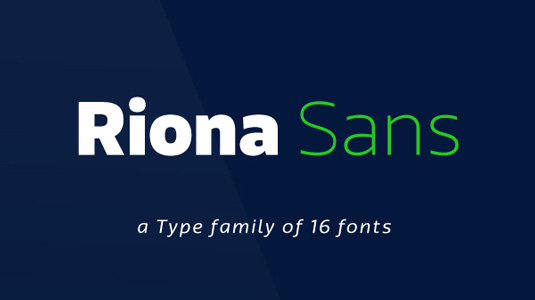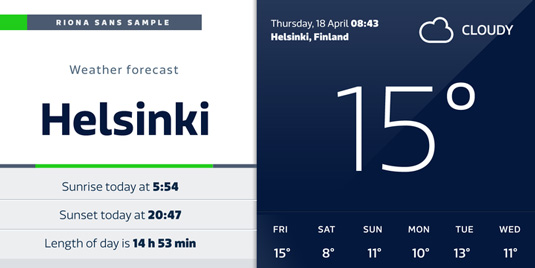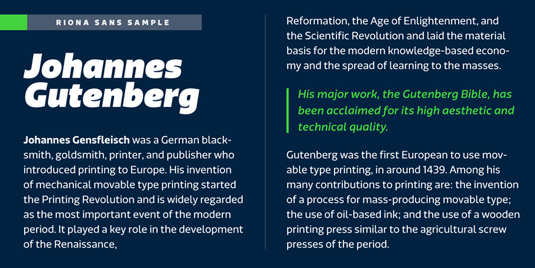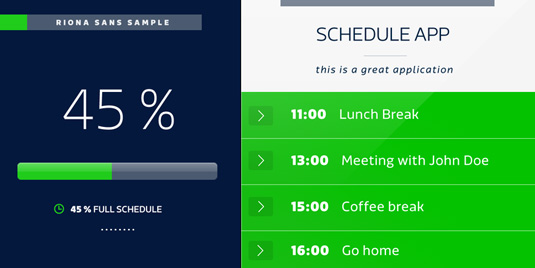
Font of the day: Riona Sans
Every day we showcase the best fonts on the web. Today it's Riona Sans by Mika Melves.
Riona Sans by Mika Melves
Today's font of choice is Riona Sans by art director Mika Melvas. "Riona sans is a sans serif type family of 16 fonts, including true italics," Melvas explains. "It can handle every kind of challenge you throw at it. You can use it on websites, print, applications, games, logos, packages as a brand font, you name it.
"It looks good in big sizes and has good legibility at small sizes. You can achieve different feels by Riona Sans. It can be elegant and subtle, it can be strong and dynamic, friendly or powerful."